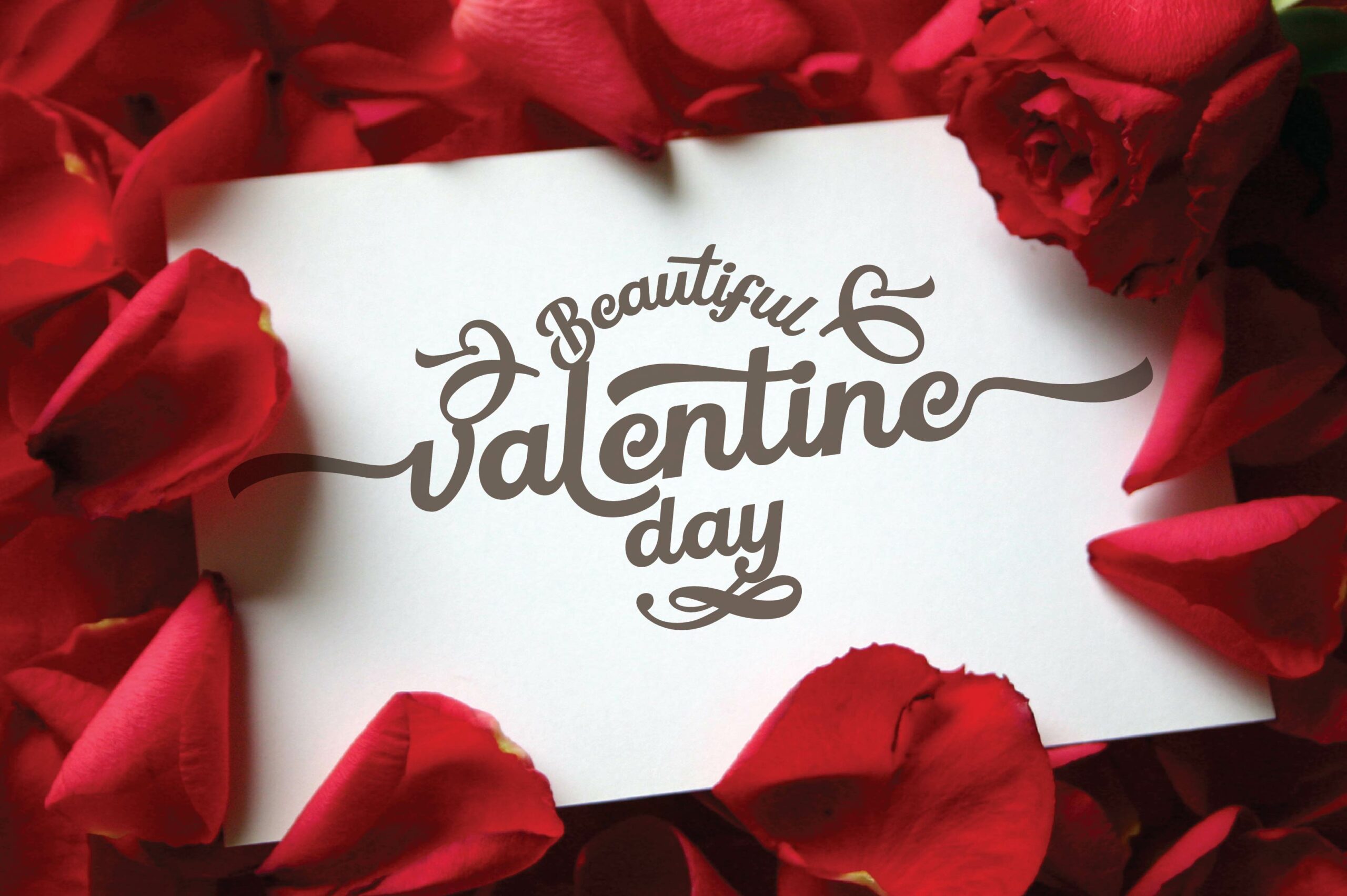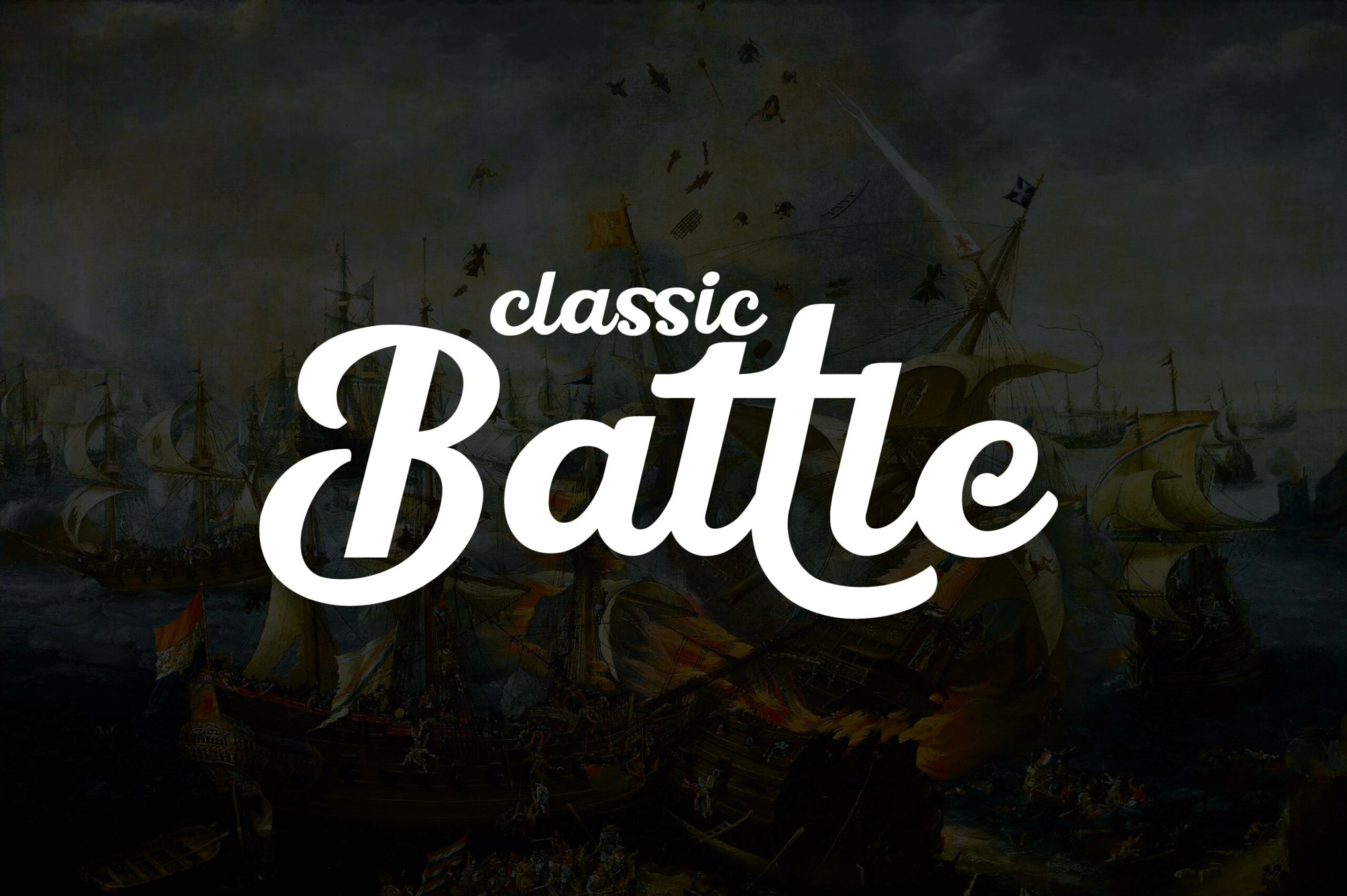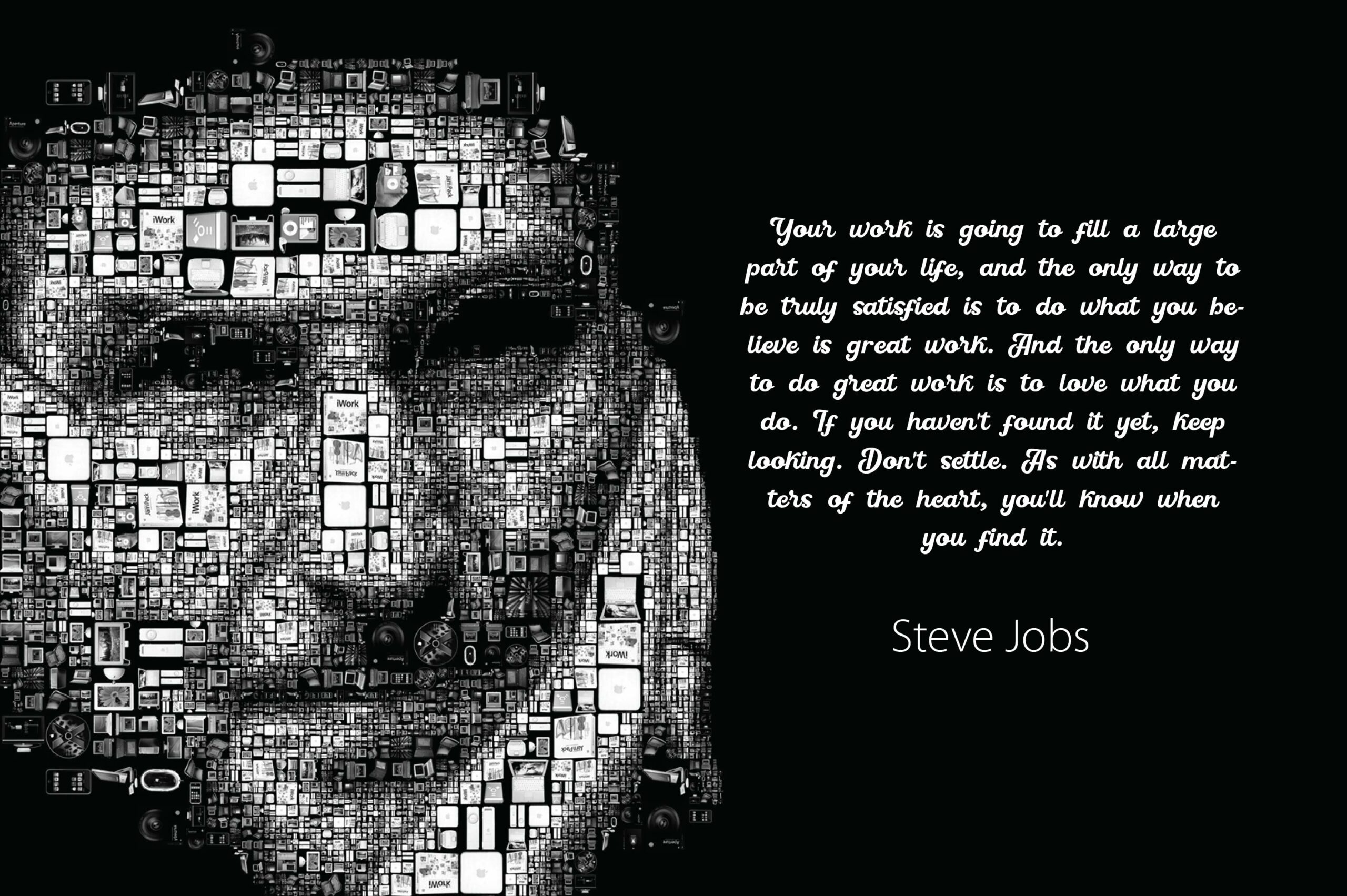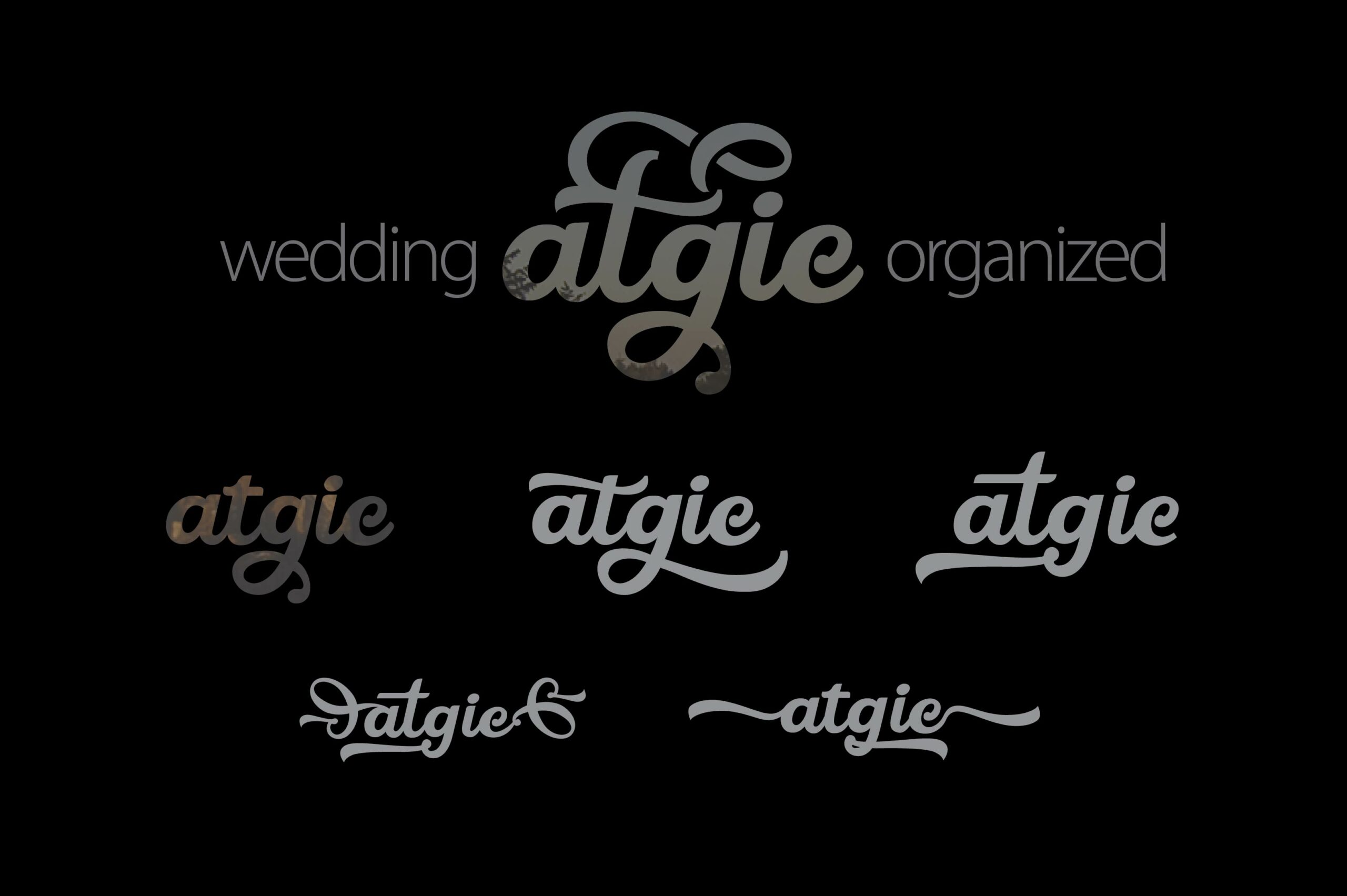
Wattiny Pro Font
About Wattiny Pro Font
Wattiny Pro is a unique typeface fluid typeface.
It’s a font with thick lines. The body is easy to read and because it’s smooth, it also works great for die-cutting.